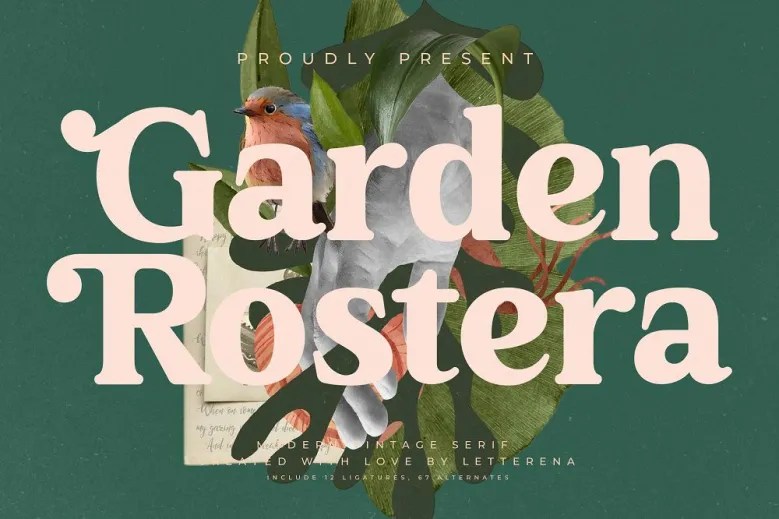
Garden Rostera Font
Garden Rostera is a sophisticated serif font characterized by its clean and minimalistic design. This elegant typeface is meticulously crafted to enhance contemporary corporate and editorial projects with its refined aesthetic. Perfect for high-end branding and web typography, Garden Rostera’s understated charm adds a touch of class and professionalism to any design.
Its sleek lines and tasteful details make it an excellent choice for projects that demand a modern yet timeless look. Whether you are designing editorial content, crafting luxury branding materials, or developing web typography, Garden Rostera brings a sense of elegance and value to your work.
This versatile font seamlessly integrates into various design applications, providing a polished and upscale appearance that resonates with modern aesthetics.